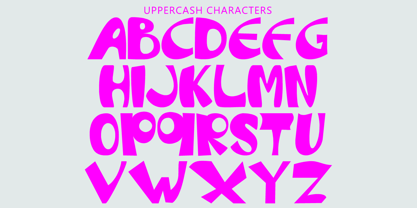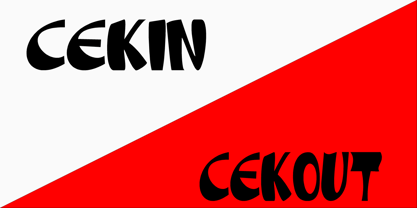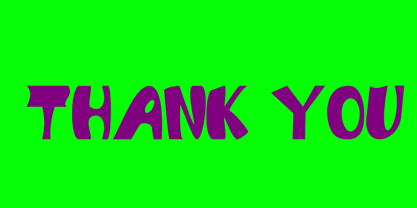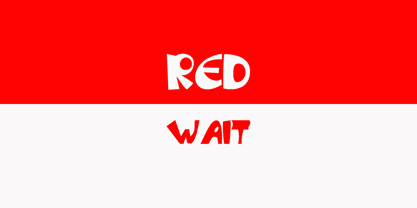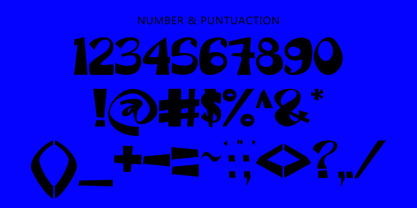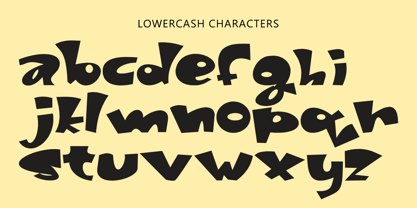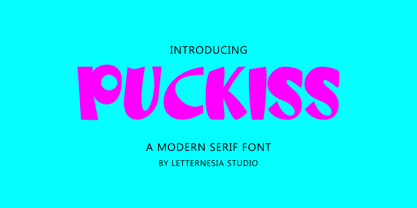
Puckiss
by Letternesia studio
The Puckiss Font Family was designed by Ta Siyo and published by Letternesia studio. Puckiss contains 1 styles. More about this family
Puckiss is a playful and romantic font designed to bring a sweet, cheerful, and love-filled vibe. Inspired by soft yet expressive handwriting, Puckiss is perfect for wedding invitations, greeting cards, packaging design, and any creative project that needs a warm, personal touch.
With flowing letterforms, heart accents or decorative swirls on select characters, and a light, rhythmic style, Puckiss radiates a friendly and affectionate personality. It's the perfect font to convey heartfelt messages—without losing its sense of style.